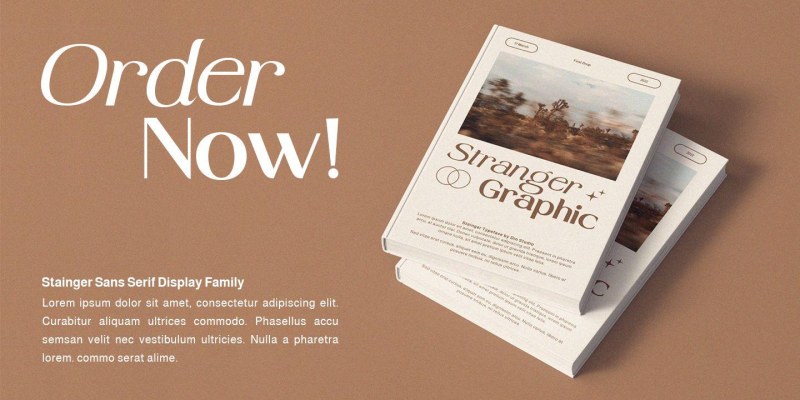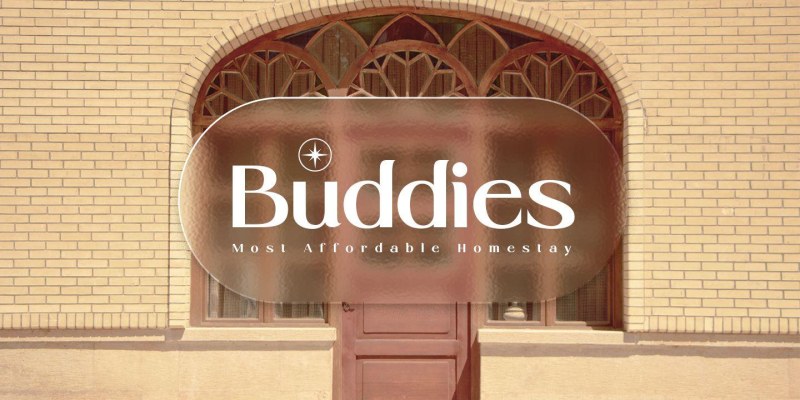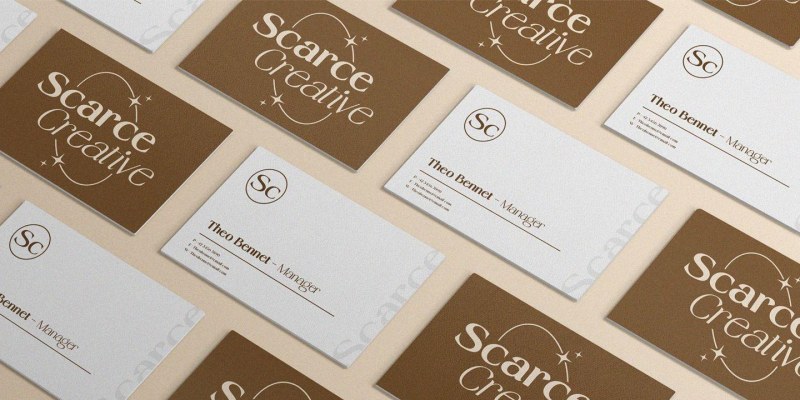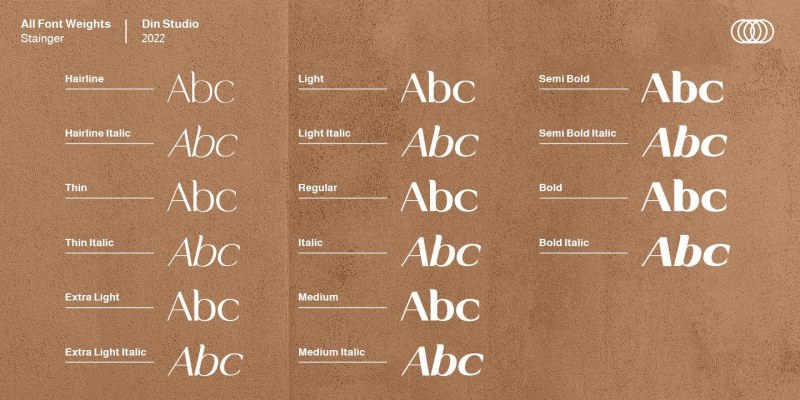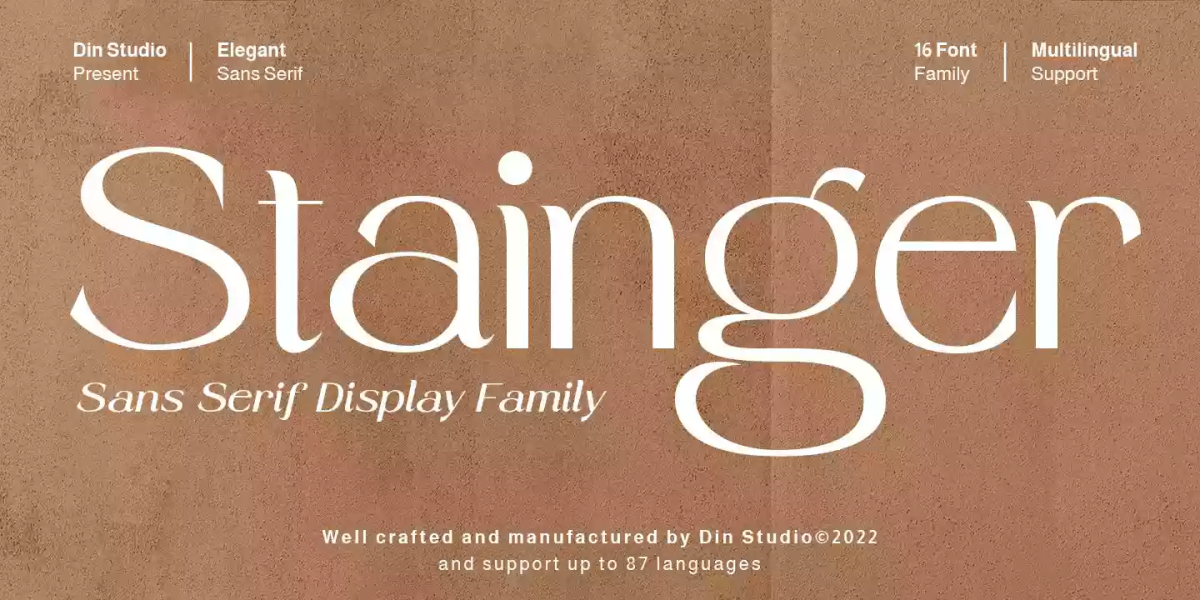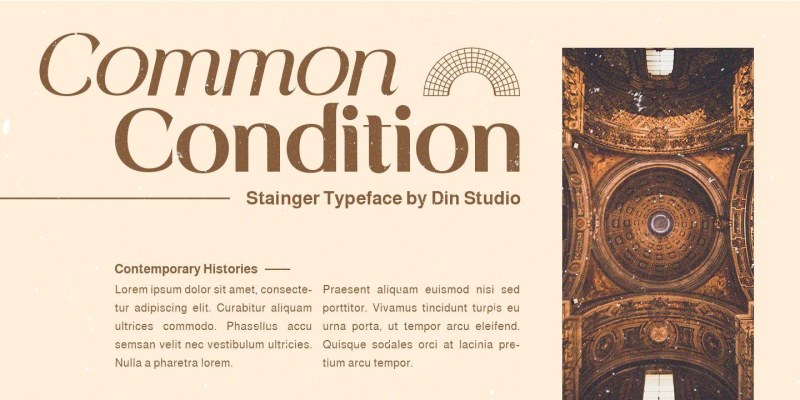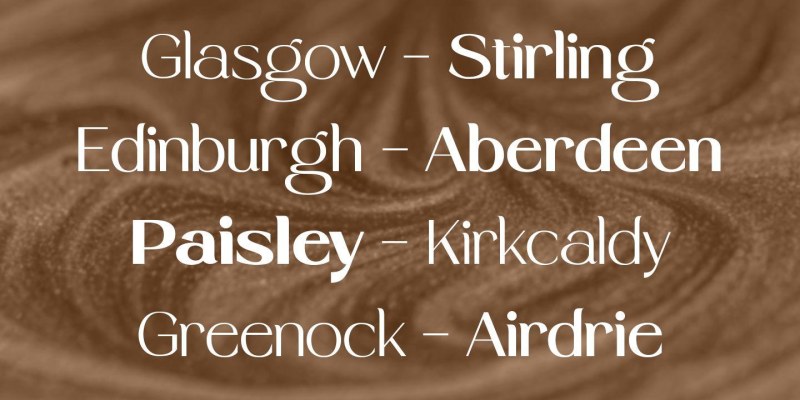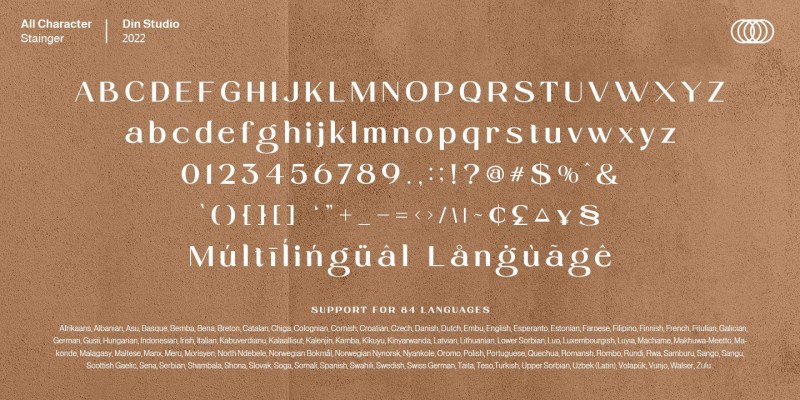
Stainger Font Family
Character set · 368 glyphs
Thoughtfully crafted to meet the needs of all users, Stainger unfolds new ways of expressing and enhancing your design. A font family that portrays simple, serene yet modern style. Stainger has 16 weights, covering light, heavy, italic, and other stylings. It is simple, easy to read, and works equally as well in header and body text. It is ideally used for branding, logos, social media quotes, stickers, posters, vintage designs, wall art, merchandise, social media, and many more.
Where Stainger Font Family works best
Stainger Font Family gives long-form text a classic, trustworthy rhythm — ideal for magazine spreads, annual reports and book interiors.
Pair Stainger Font Family with generous letter-spacing for wordmarks in fashion, hospitality, wine and jewellery branding.
Use Stainger Font Family for slide titles in Keynote, PowerPoint or Google Slides to add authority without looking dated.
What is Stainger Font Family good for?
Stainger Font Family is a Serif Fonts typeface tagged Branding, Craft, Modern, Poster. It works well for headlines, logos, posters, social media graphics and branding projects that need a distinctive serif fonts look.